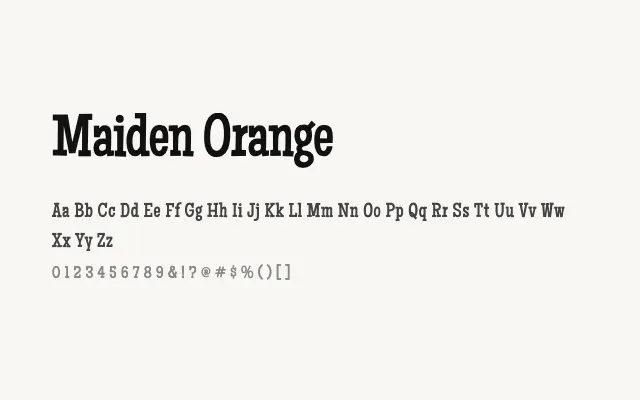
Maiden Orange
A warm, characterful transitional serif with handcrafted undertones suited to editorial and display use.
Maiden Orange sits between formal classical serif and more expressive display design, offering enough typographic personality to work effectively in branding and headline settings. Its moderate stroke contrast and slightly uneven rhythm give it an approachable, artisanal quality that distinguishes it from colder, more mechanical serifs. The single Regular weight limits its utility in complex typographic systems but focuses its appeal for logo and headline use.
Maiden Orange is a warm, single-weight transitional serif with moderate contrast and slightly informal proportions that give it a handcrafted quality. It is suited to editorial display and branding contexts rather than extended body text.